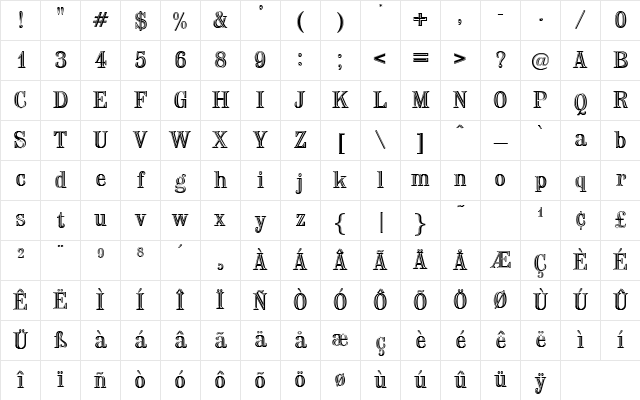
Chichester Regular
Design Context for Chichester
Chichester is a composed and adaptable typeface that performs quietly and consistently across a wide range of design contexts.
Pro Tip: Use Chichester in both headline and body roles to test its range before committing to a single application.